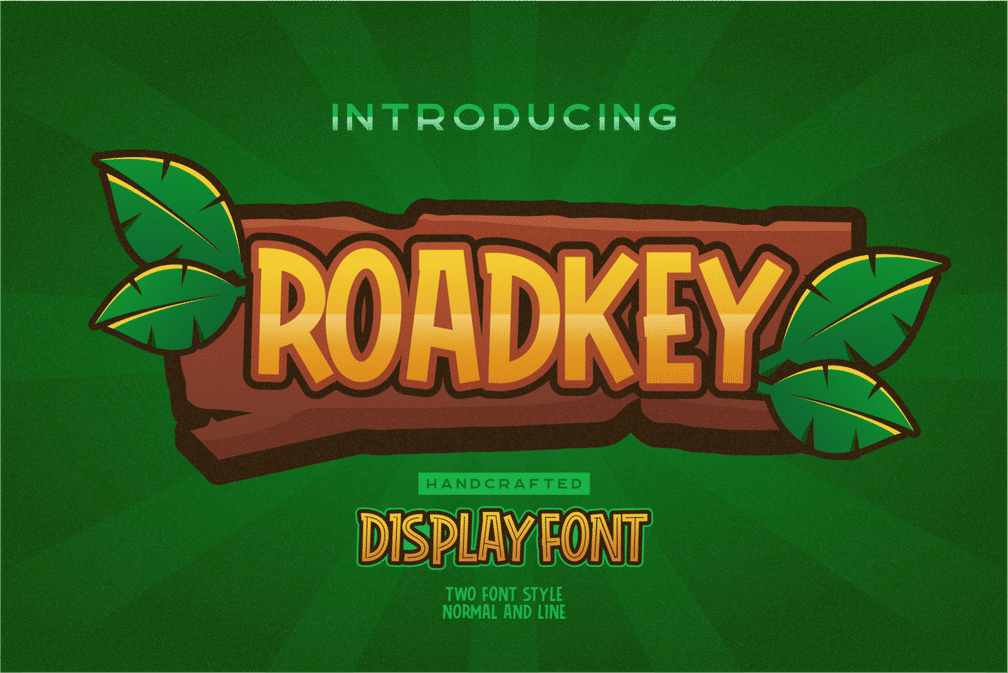
Roadkey Kids Font
This font was created for those of you who are working on designs that require a sense of child, interesting, cheerful, and happy 🙂
Suitable for logo design, posters, social media, videos, branding, etc.